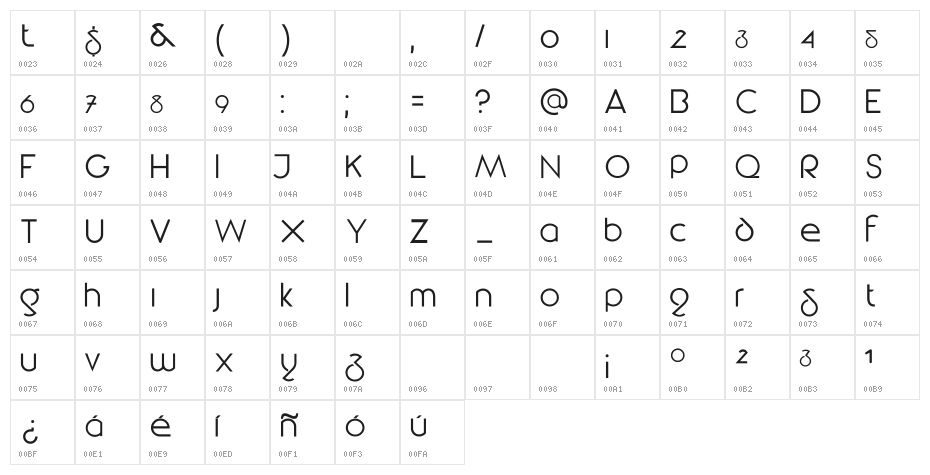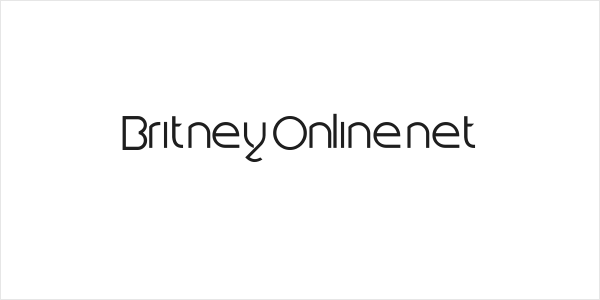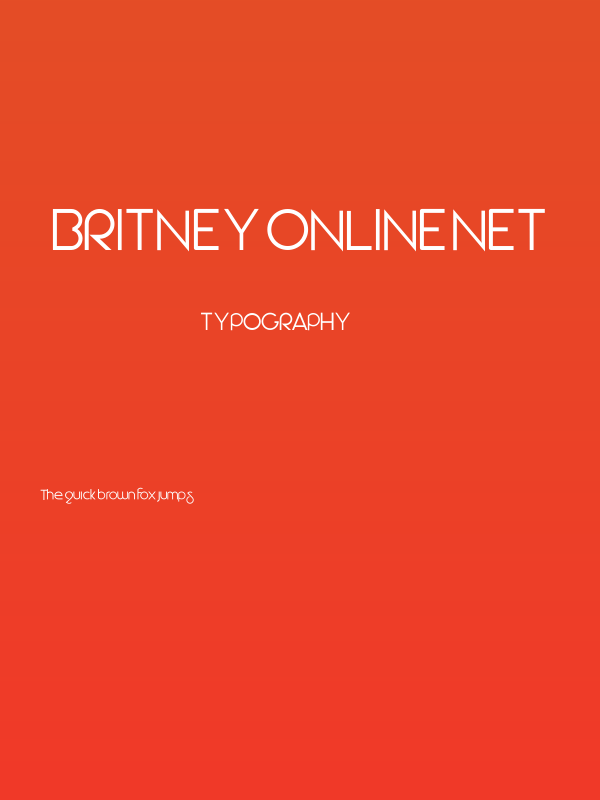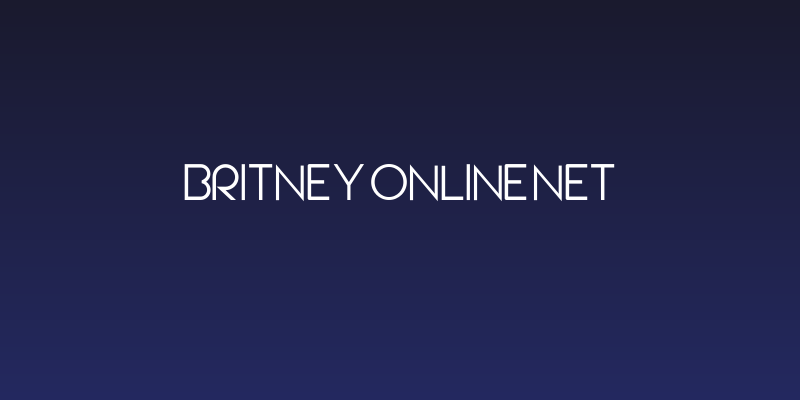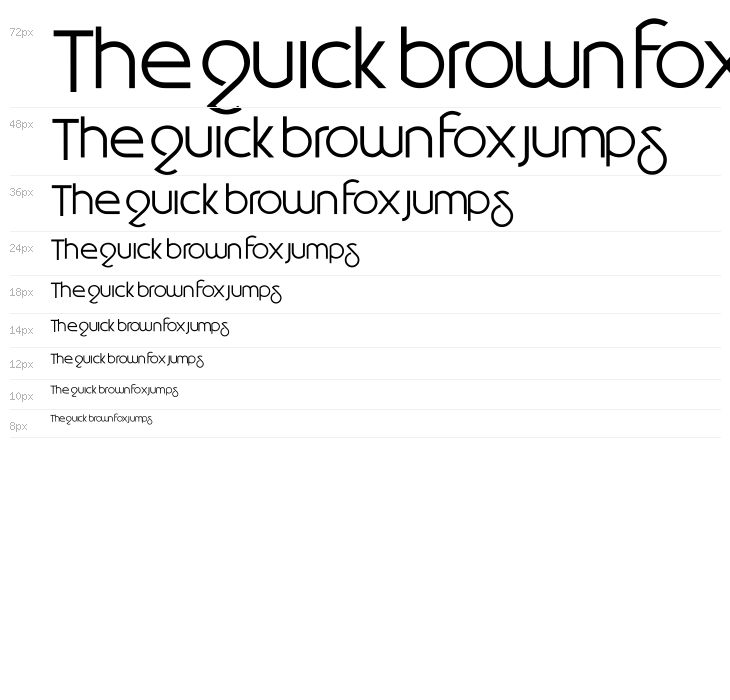
Britney-Online.net Description
This font features a modern and geometric design with a unique blend of sharp angles and smooth curves. The uppercase letters are characterized by their bold, angular forms, while the lowercase letters maintain a more rounded and flowing appearance. The numerals and special characters follow the same geometric style, providing a cohesive look across all characters. The font's distinct style makes it suitable for creative and contemporary projects, where a bold statement is desired. Its clean lines and balanced proportions ensure readability while adding a touch of elegance and sophistication.